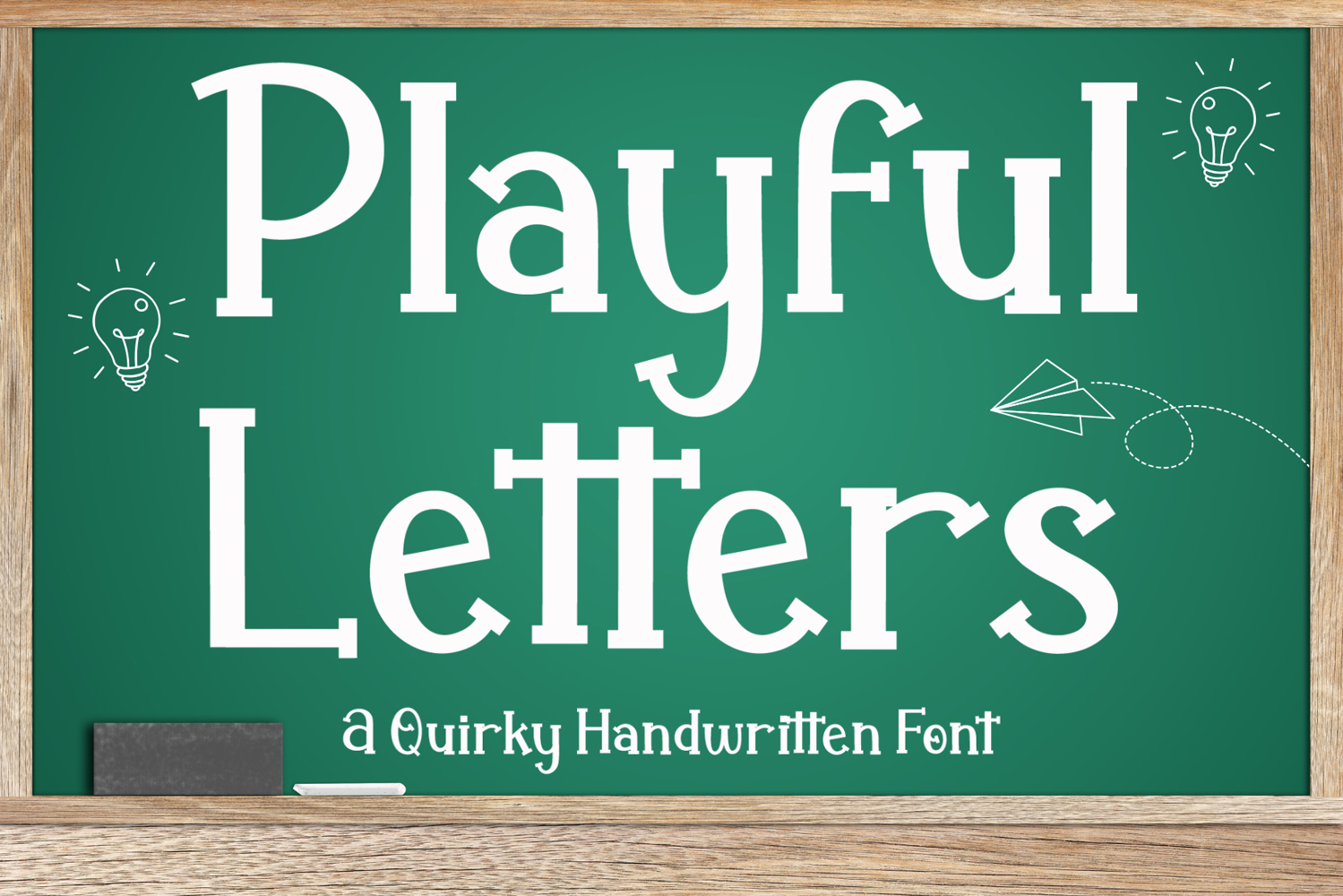
Playful Letters
Playful Letters is a fun and friendly serif font designed to bring joy to your creative projects. With its slightly imperfect shapes and playful character, this font captures a relaxed, cheerful feel while still maintaining great readability. It’s perfect for back-to-school designs, kids’ activities, classroom materials, and educational worksheets.
This font works beautifully for posters, birthday cards, social media graphics, kids’ books, party invitations, or social media content. The unique letterforms add personality without being overwhelming, making it suitable for both bold headlines and eye-catching titles.
Whether you're creating for teachers, students, or playful brands, Playful Letters delivers a warm and inviting touch. Add a bit of fun to your typography and make your designs stand out with this charming serif font.